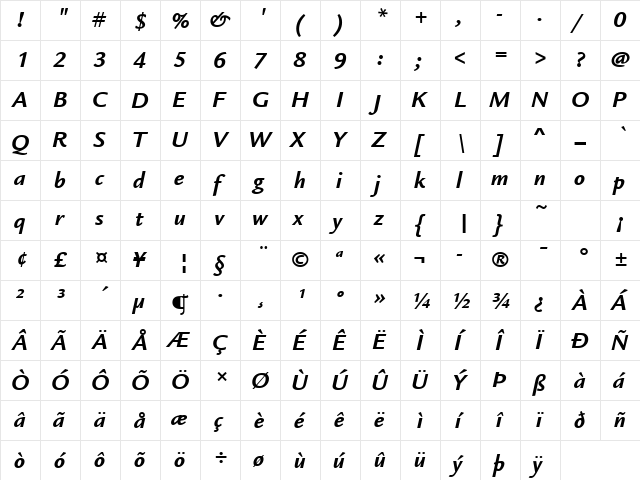
Legacy Sans ITC TT BoldItalic Font Preview
Design Context for Legacy Sans ITC TT Typeface
Legacy Sans ITC TT takes a measured approach to typography — its balanced proportions and neutral character make it a reliable workhorse for both digital and print work. Its italic angle brings a sense of urgency and motion to the letterforms. The heavy weight commands attention and anchors typographic hierarchies.
Pro Tip: Try Legacy Sans ITC TT for annotation and caption copy alongside an upright companion — the contrast in angle creates a dynamic but ordered typographic system.